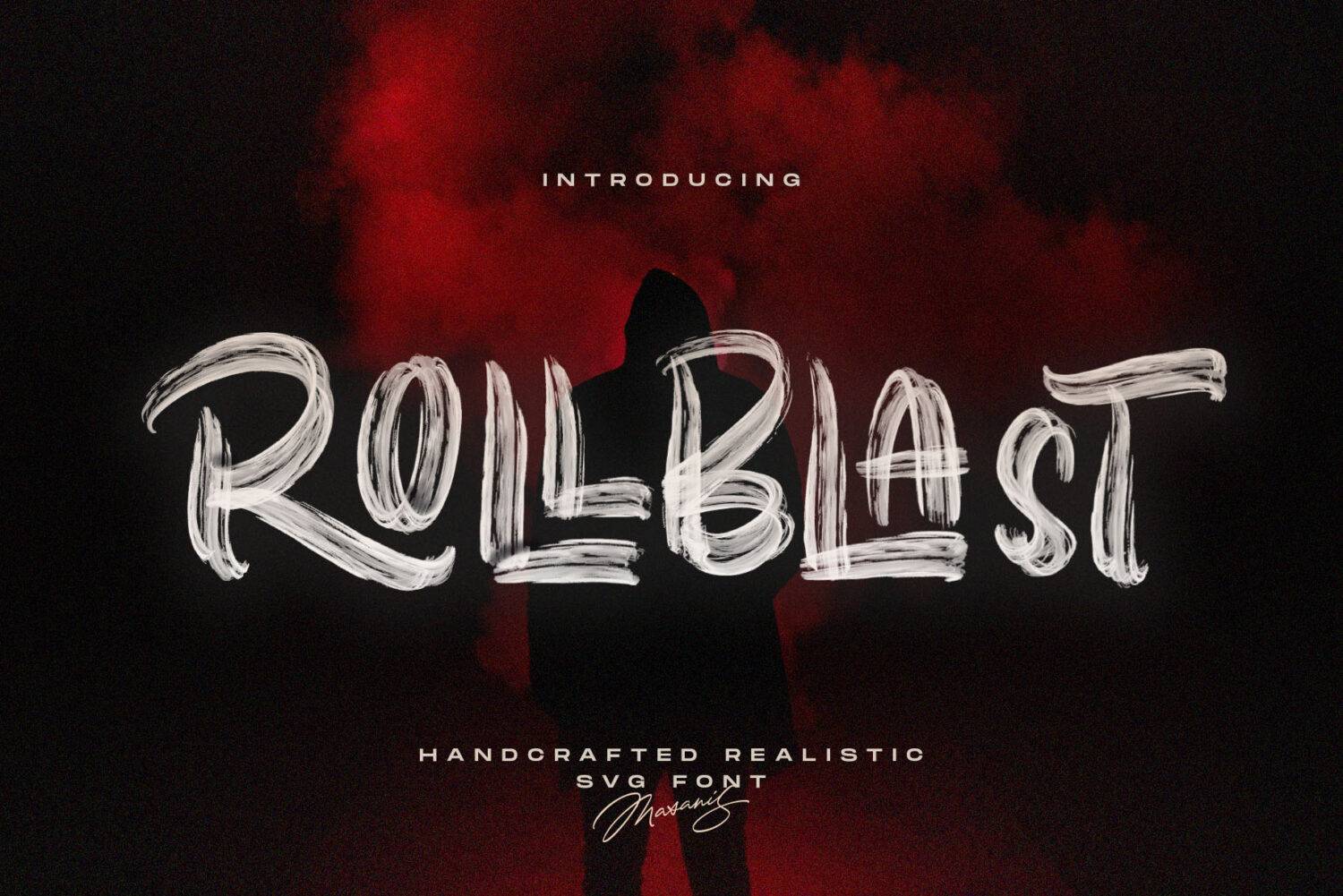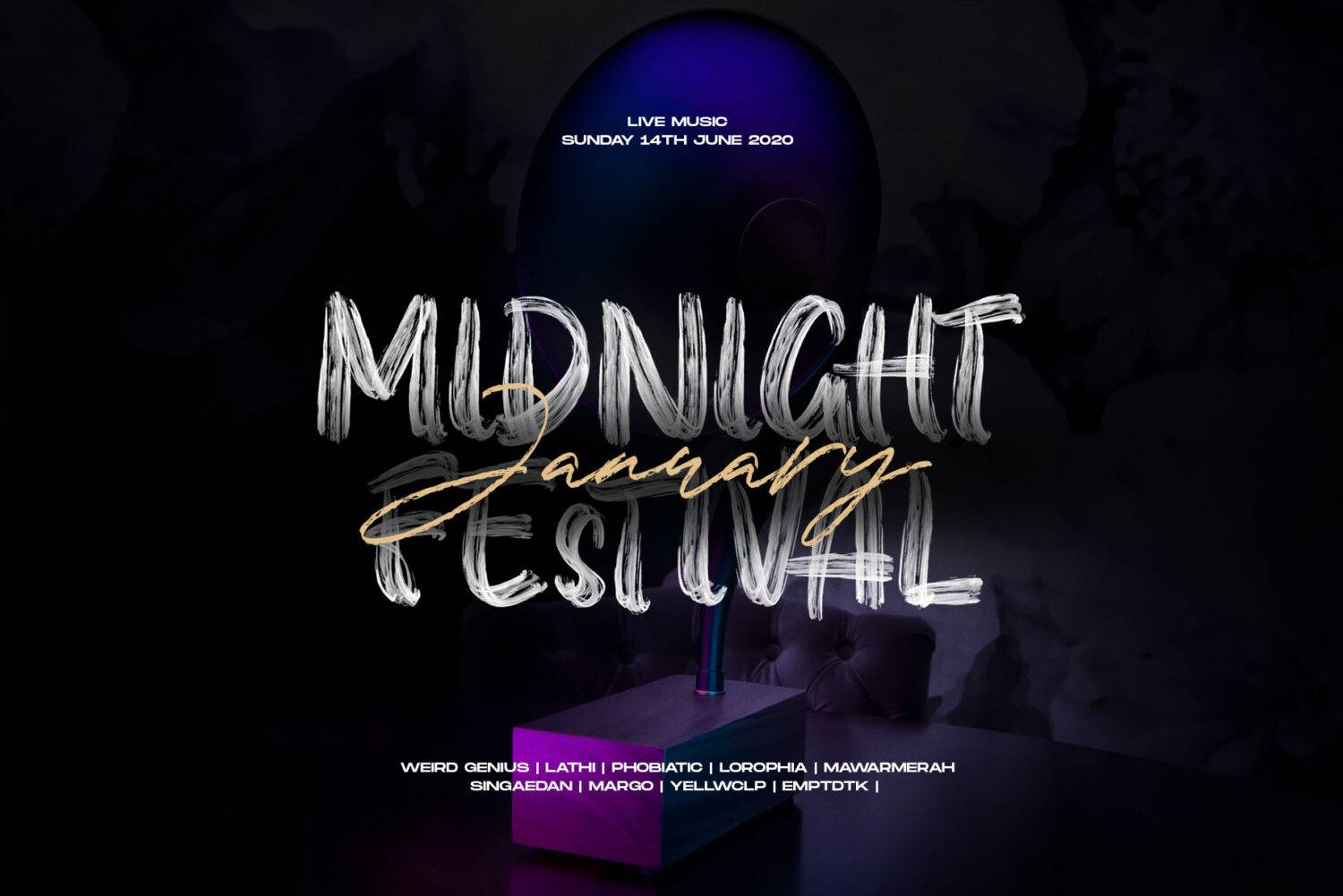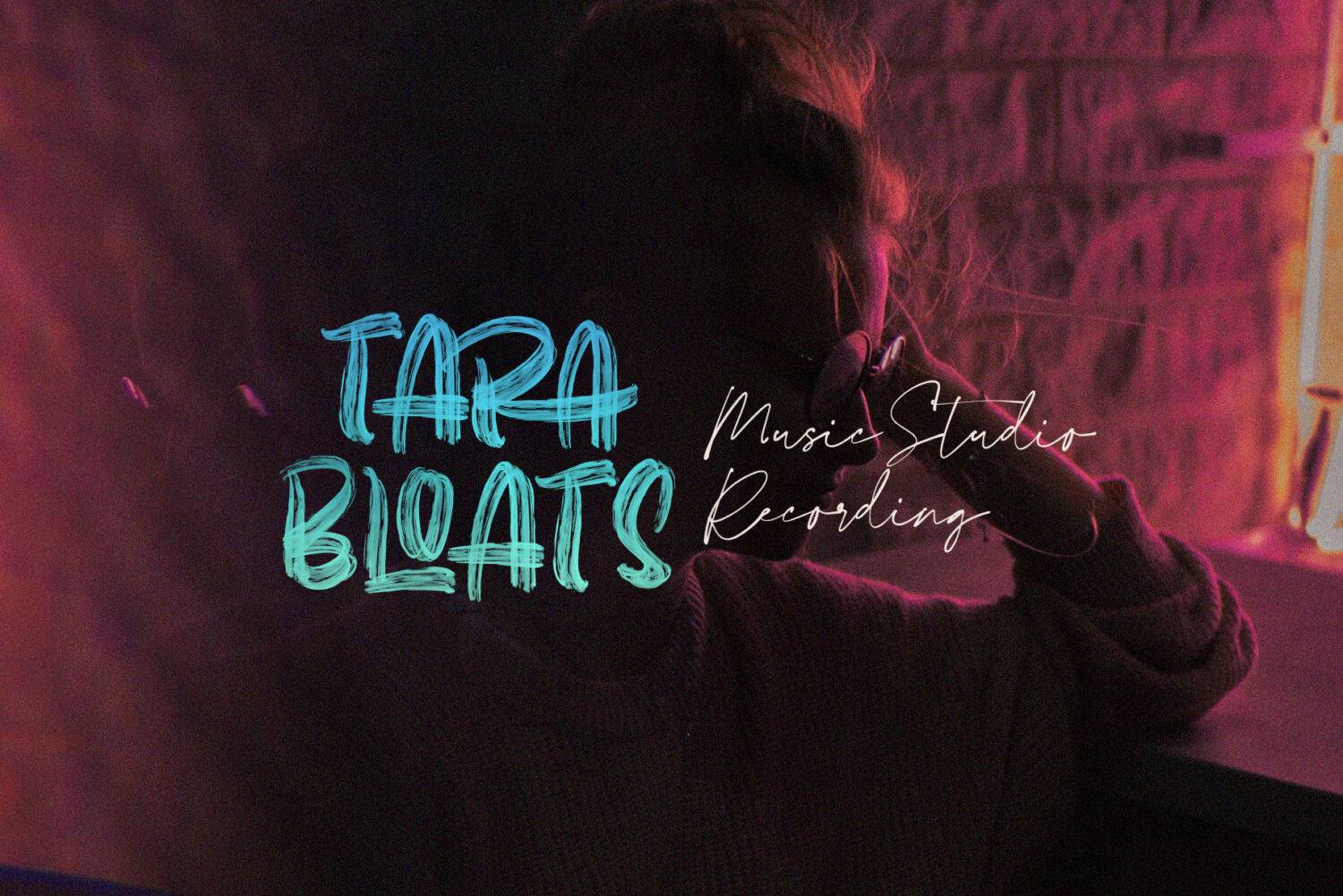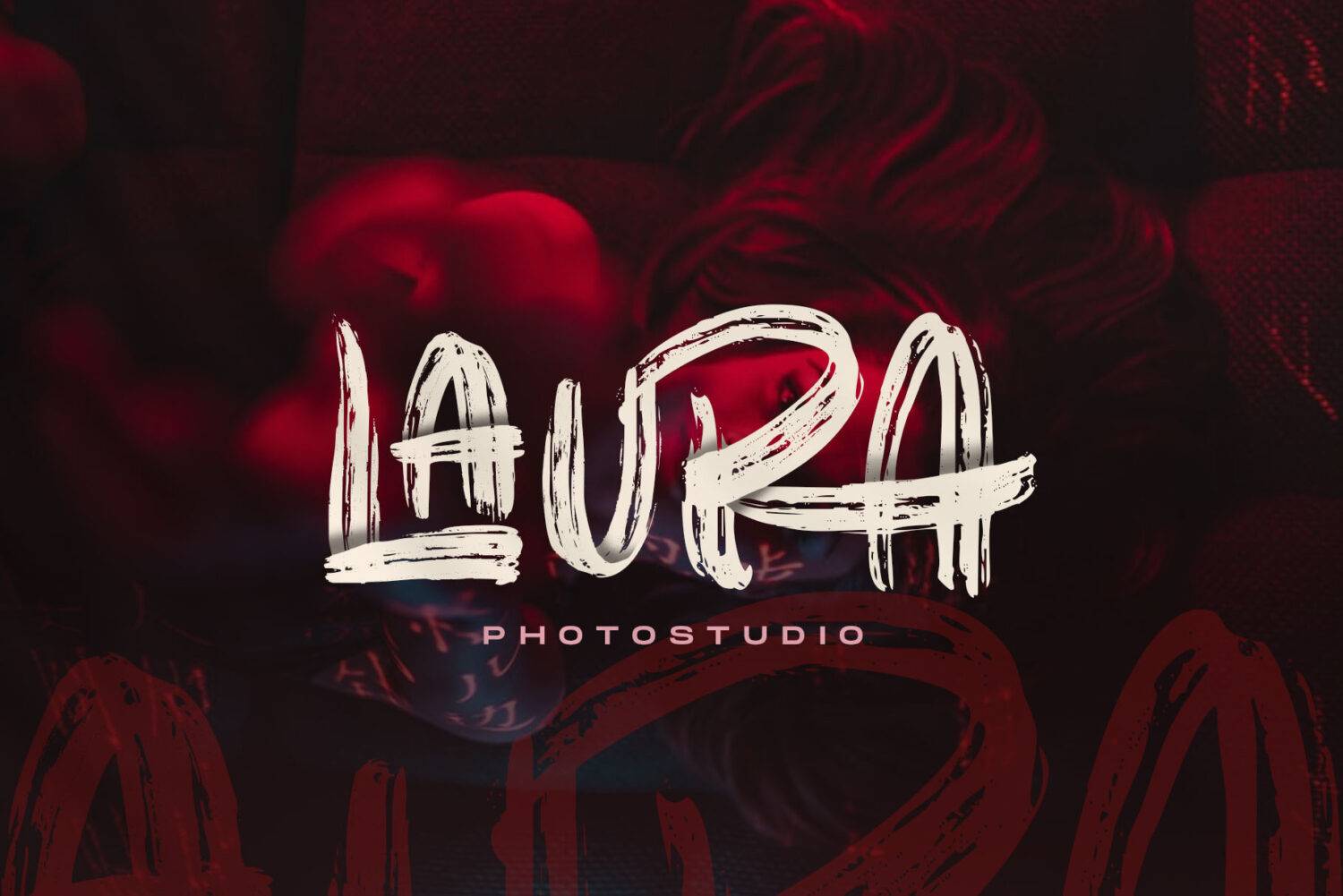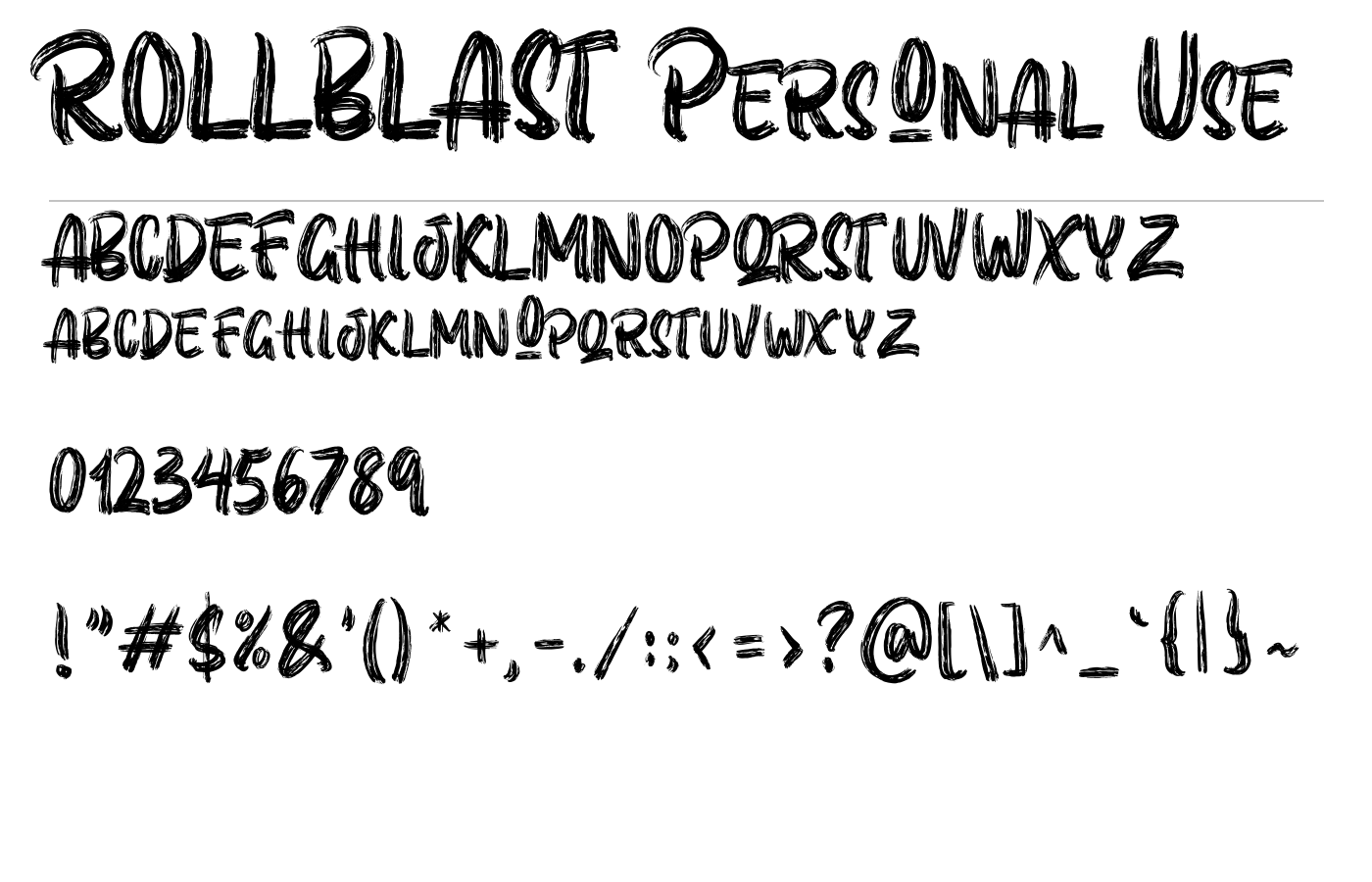
Rollblast is a bold, hand-drawn sans serif font with a lively, textured brushstroke style that gives it an organic and informal feel. Its slightly condensed uppercase letters and quirky shapes make it perfect for creative projects, posters, and branding that seek a playful, energetic vibe. This font works well when used in headlines or display settings where a handcrafted, expressive touch is desired.
Rollblast Font
About Rollblast Font
| Font family | Rollblast Font |
| Designer | Muhammad Naufal Anis |